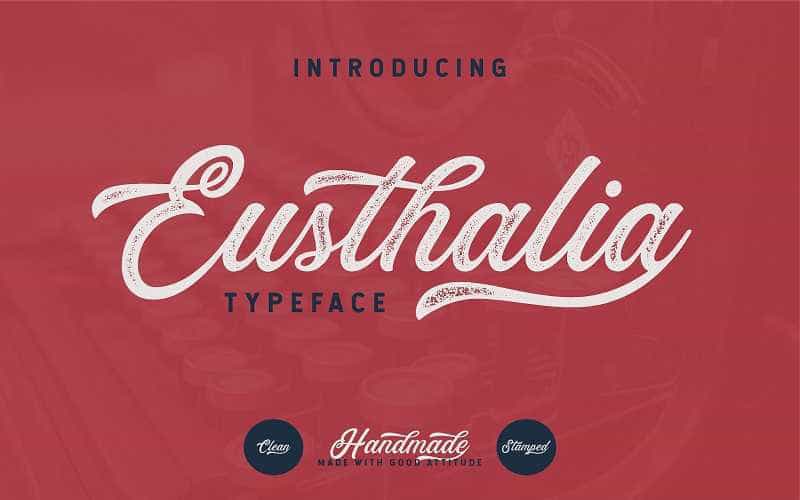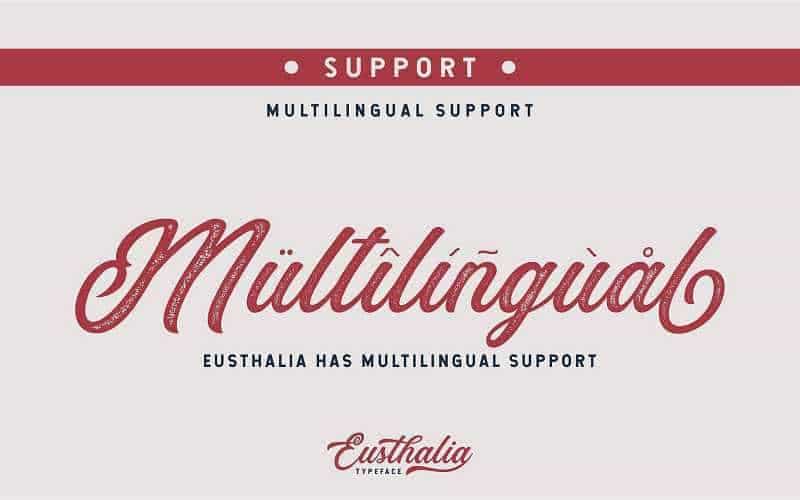
Discover Eusthalia Script Font, part of the Brush Calligraphy Comic collection—a versatile and unique font perfect for adding a personal touch to your projects. Download it for free and enjoy crafting designs with style, from invitations to social media posts. This font is available exclusively for personal use, giving you the freedom to create without limits. Unlock your creativity with Eusthalia Script Font today!
Hello brother and sister! Please take your attention to our new creation identified as, Eusthalia Typeface. Eusthalia Typeface is of script type and comprises of two variant; Clean Eusthalia Style and Stamped Eusthalia Style. Depending on the given styles above, Eusthalia Typeface can be used on Vintage Design. Eusthalia Typeface has also general Multilingual Support Reading Features and Writing Features.